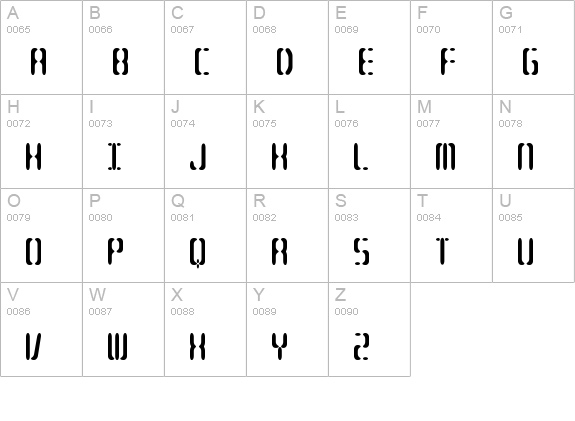
Compliant Confuse 3s -BRK- Font Details
Compliant Confuse 3s -BRK- font is a unique and eye-catching typeface that combines elements of compliance and confusion to create a bold and intriguing design. With its sharp angles and modern aesthetic, this font is perfect for making a statement in your projects. What sets Compliant Confuse 3s -BRK- font apart is its ability to convey both order and chaos in a harmonious way, making it a versatile choice for a wide range of creative endeavors. Whether you're designing a logo, creating a poster, or crafting social media graphics, this font is sure to make a lasting impression. Best of all, Compliant Confuse 3s -BRK- font is freely available to download at FontsMarket.com, allowing you to add this distinctive typeface to your collection without any cost. Don't miss out on the opportunity to enhance your designs with the bold style of Compliant Confuse 3s -BRK- font today!